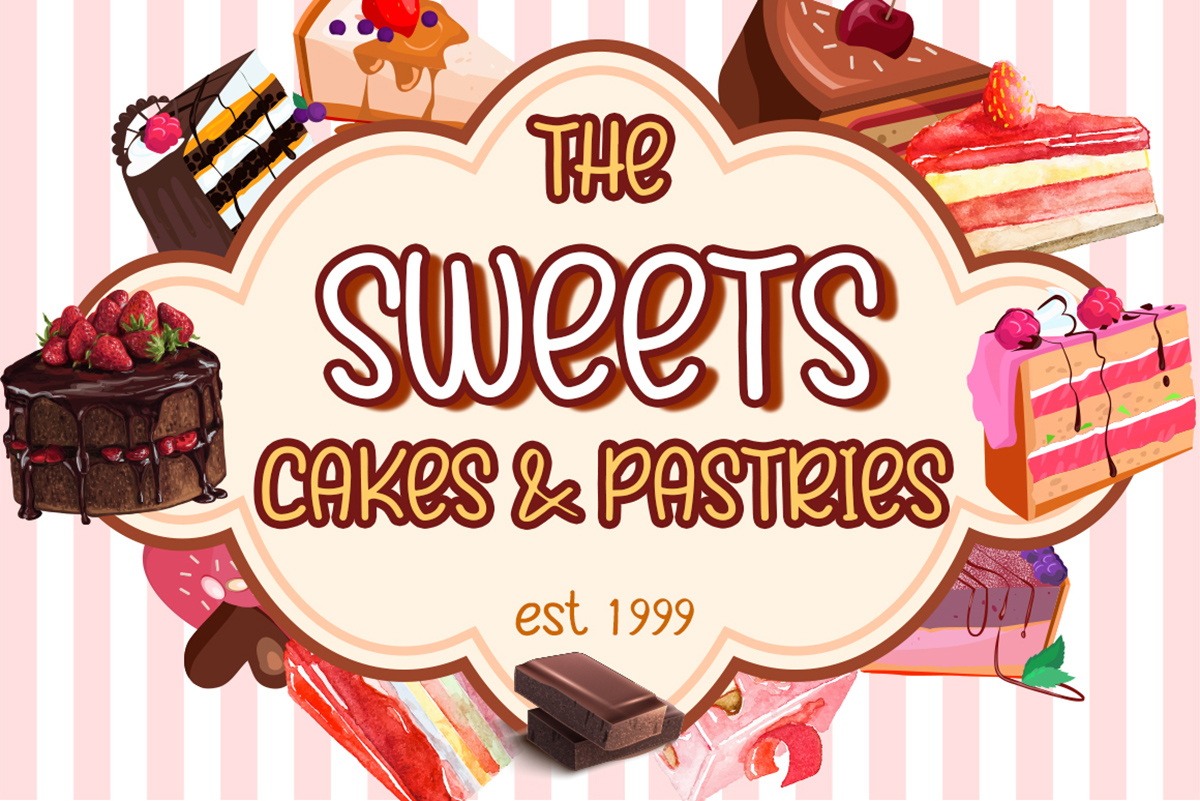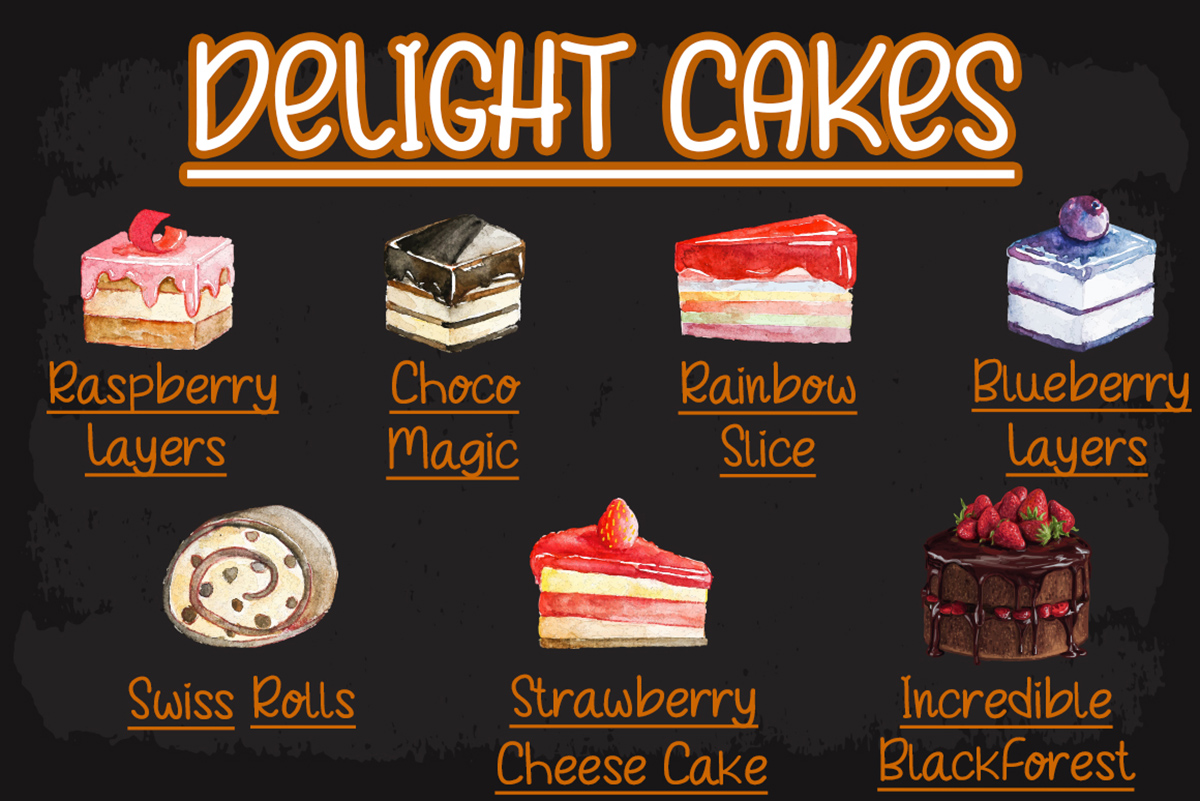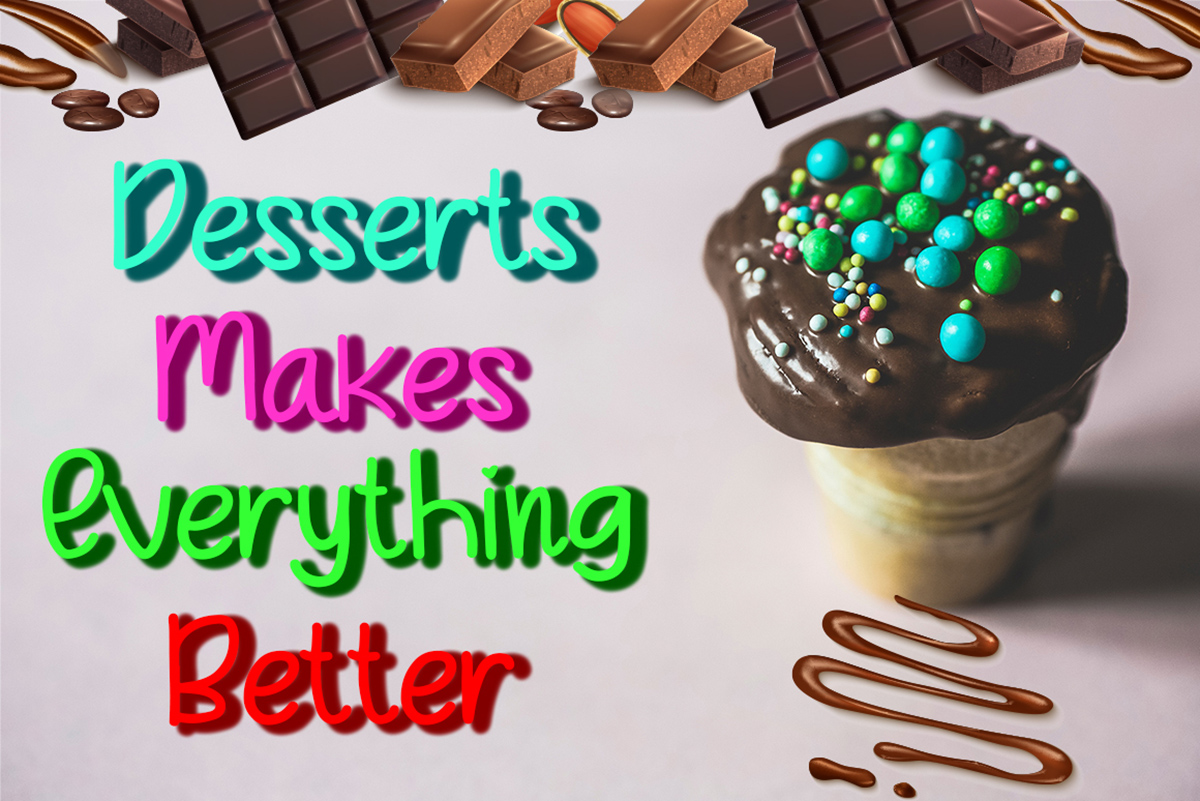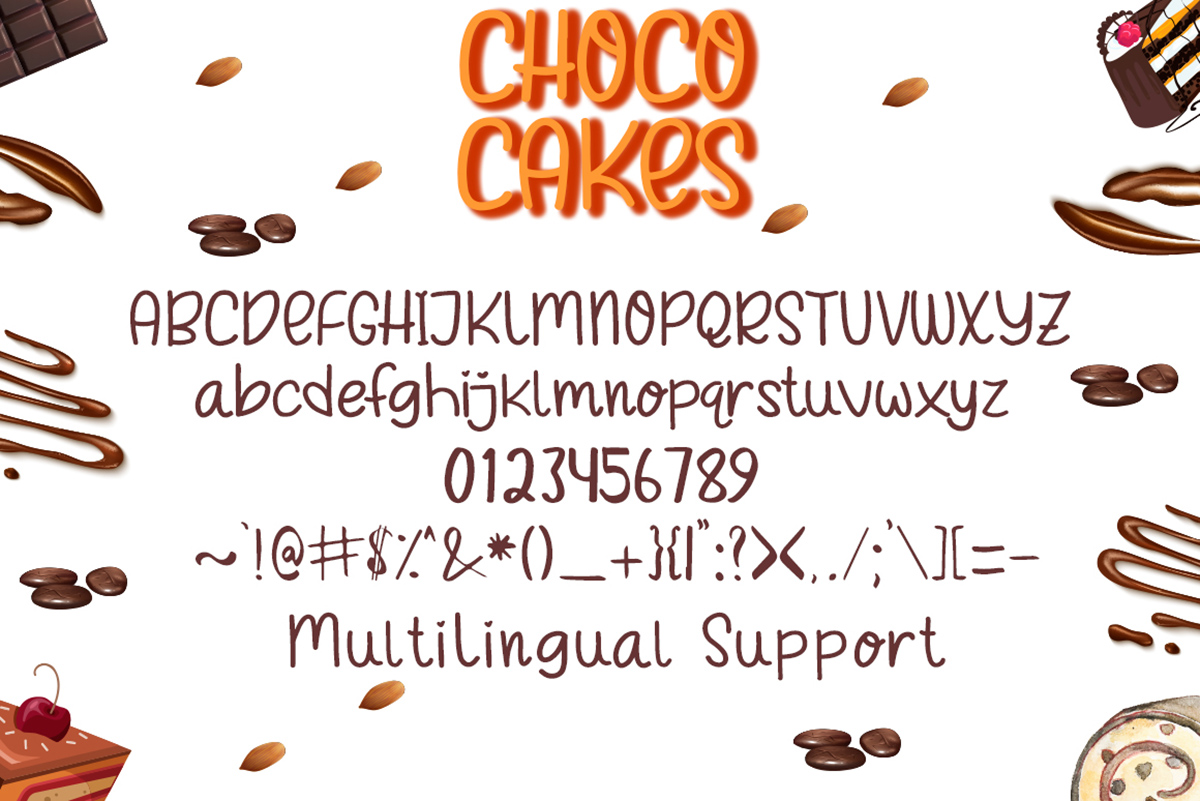
Choco Cake Free Font
Choco Cake Free Font is a neat and friendly handwritten font. It is ideal for each of your delicious baking adventures. Suitable to a wide variety of designs due to its simple style, Choco Cakes has the potential to become your favorite go-to font, no matter the occasion. This free typeface was designed by the talented Booga Letter Studio. If you like it don’t forget to check out the full version.